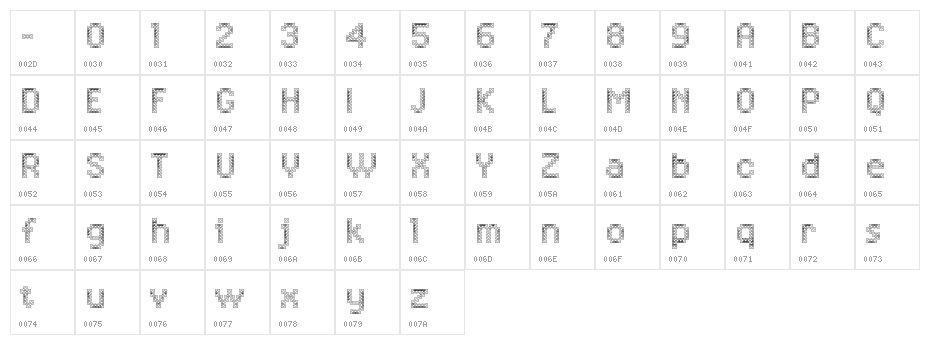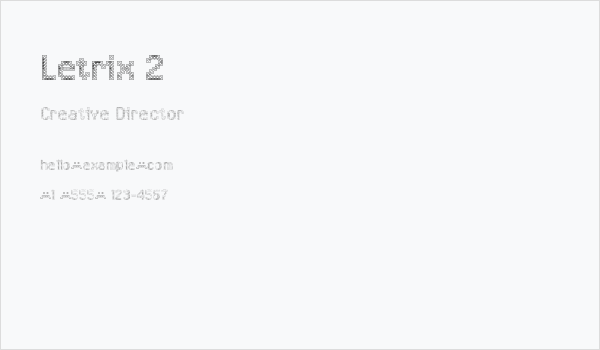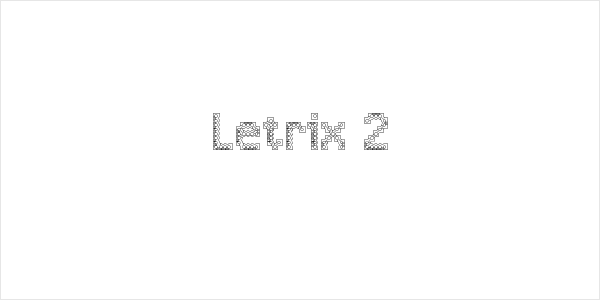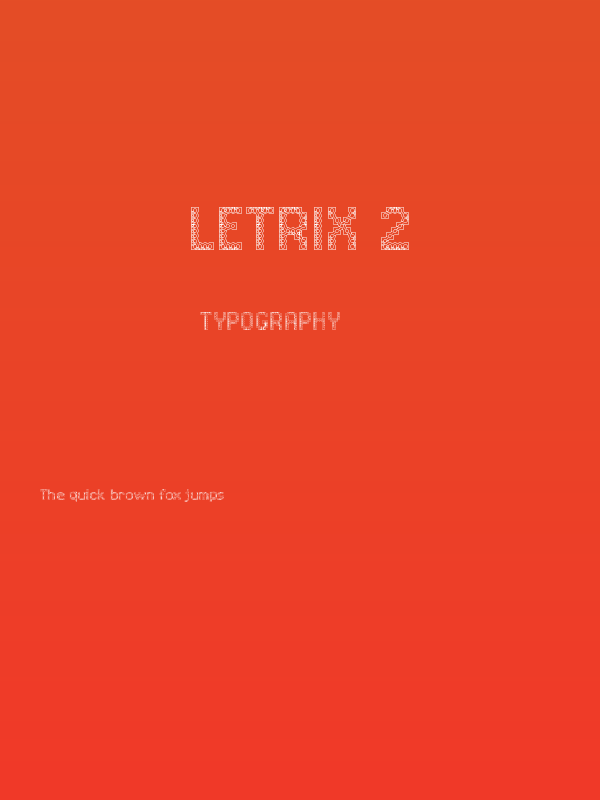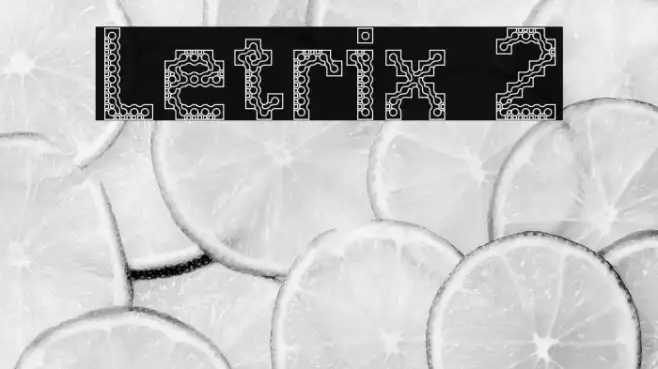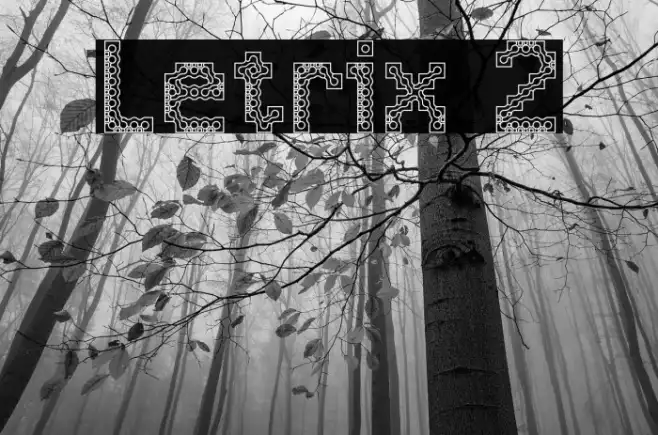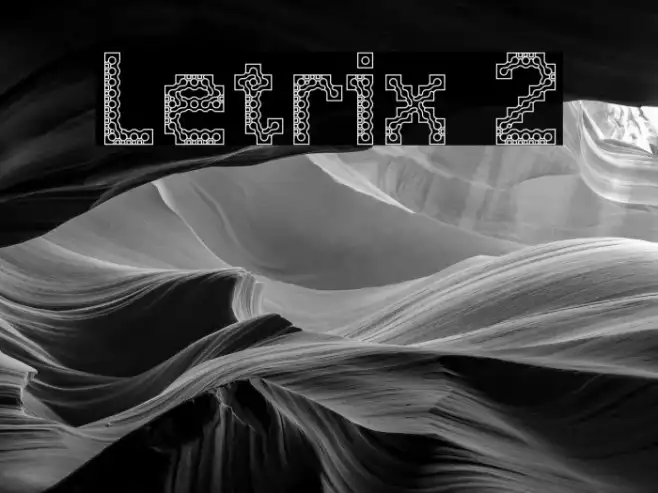
Letrix 2 Font
Letrix 2 Description
This font features a unique and intricate design, characterized by a pattern of interconnected circles and lines that form each letter and number. The geometric style gives it a playful and modern appearance, making it stand out with its decorative elements. The uppercase and lowercase letters maintain a consistent style, with each character enclosed within a structured, almost grid-like framework. The numbers follow the same design principles, ensuring a cohesive look across all characters. The special characters also adhere to this theme, adding a whimsical touch to the overall aesthetic.
| Proposed Projects | Ideal for creative projects such as posters, invitations, and branding materials that require a distinctive and artistic touch. |